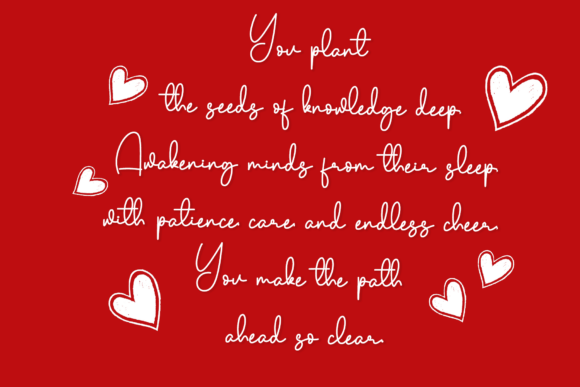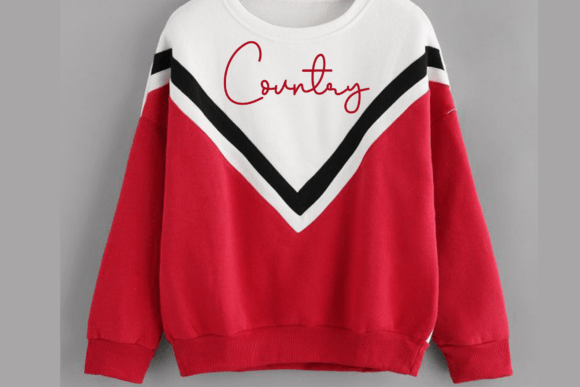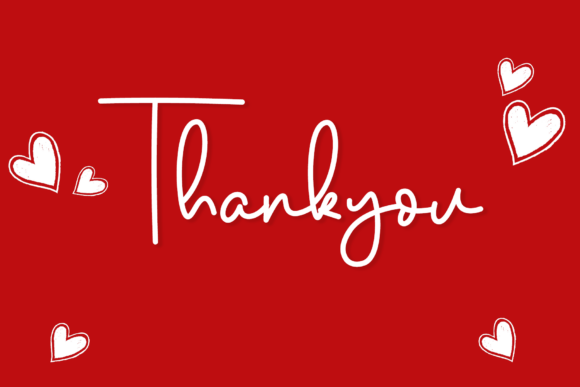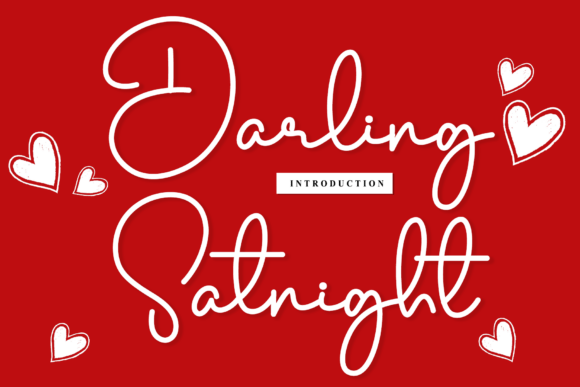
Discover the Charm of Darling Satnight Font: Elevate Your Designs with Timeless Elegance
Are you on the hunt for a font that adds a touch of sophistication and whimsy to your designs? Look no further than the Darling Satnight Font. This lovely and timeless handwritten font is making waves in the design community, and for good reason. Its unique blend of elegance and playfulness makes it the perfect choice for creating eye-catching logos, branding, and quotes that leave a lasting impression.
Handwritten fonts have a way of adding a personal touch to any design. They evoke a sense of warmth, friendliness, and approachability that can be difficult to achieve with more traditional fonts. Darling Satnight Font takes this to the next level with its beautiful, flowing script that is both refined and rustic. Every letter has a unique and beautiful touch, which will make your design come alive!
What Makes Darling Satnight Font So Special?
So, what sets Darling Satnight Font apart from other fonts on the market? Here are just a few reasons why designers and crafters are falling in love with this stunning font:
- Unique Character: Each letter in Darling Satnight Font has its own distinct personality, making your designs truly one-of-a-kind.
- Elegant and Playful: This font strikes the perfect balance between sophistication and whimsy, making it suitable for a wide range of design applications.
- Versatile: Whether you’re creating logos, branding materials, quotes, or social media graphics, Darling Satnight Font is the perfect choice.
- Easy to Read: Despite its ornate appearance, Darling Satnight Font is surprisingly easy to read, making it perfect for both digital and print applications.
Using Darling Satnight Font in Your Designs
Darling Satnight Font is incredibly versatile, making it suitable for a wide range of design applications. Here are just a few ideas to get you started:
- Logo Design: Create a lasting impression with a custom logo that showcases your brand’s personality.
- Branding Materials: Use Darling Satnight Font to add a touch of elegance to your business cards, letterheads, and packaging.
- Quotes and Social Media Graphics: Add a dash of whimsy to your social media graphics and quotes with this beautiful font.
- Wedding and Event Stationery: Make your wedding or event stationery truly special with Darling Satnight Font.
Tips for Getting the Most Out of Darling Satnight Font
To truly make the most of Darling Satnight Font, here are a few tips to keep in mind:
- Experiment with Colors: Try pairing Darling Satnight Font with different colors to create a unique look that reflects your brand’s personality.
- Mix and Match: Combine Darling Satnight Font with other fonts to create a truly one-of-a-kind look.
- Pay Attention to Spacing: Make sure to adjust the spacing between letters to ensure your text is easy to read and visually appealing.
In conclusion, Darling Satnight Font is a timeless and elegant handwritten font that is sure to elevate your designs to the next level. Its unique character, versatility, and ease of use make it the perfect choice for designers and crafters looking to add a touch of sophistication and whimsy to their work. Whether you’re creating logos, branding materials, quotes, or social media graphics, Darling Satnight Font is the perfect choice. So why wait? Download Darling Satnight Font today and discover the charm of this beautiful font for yourself!